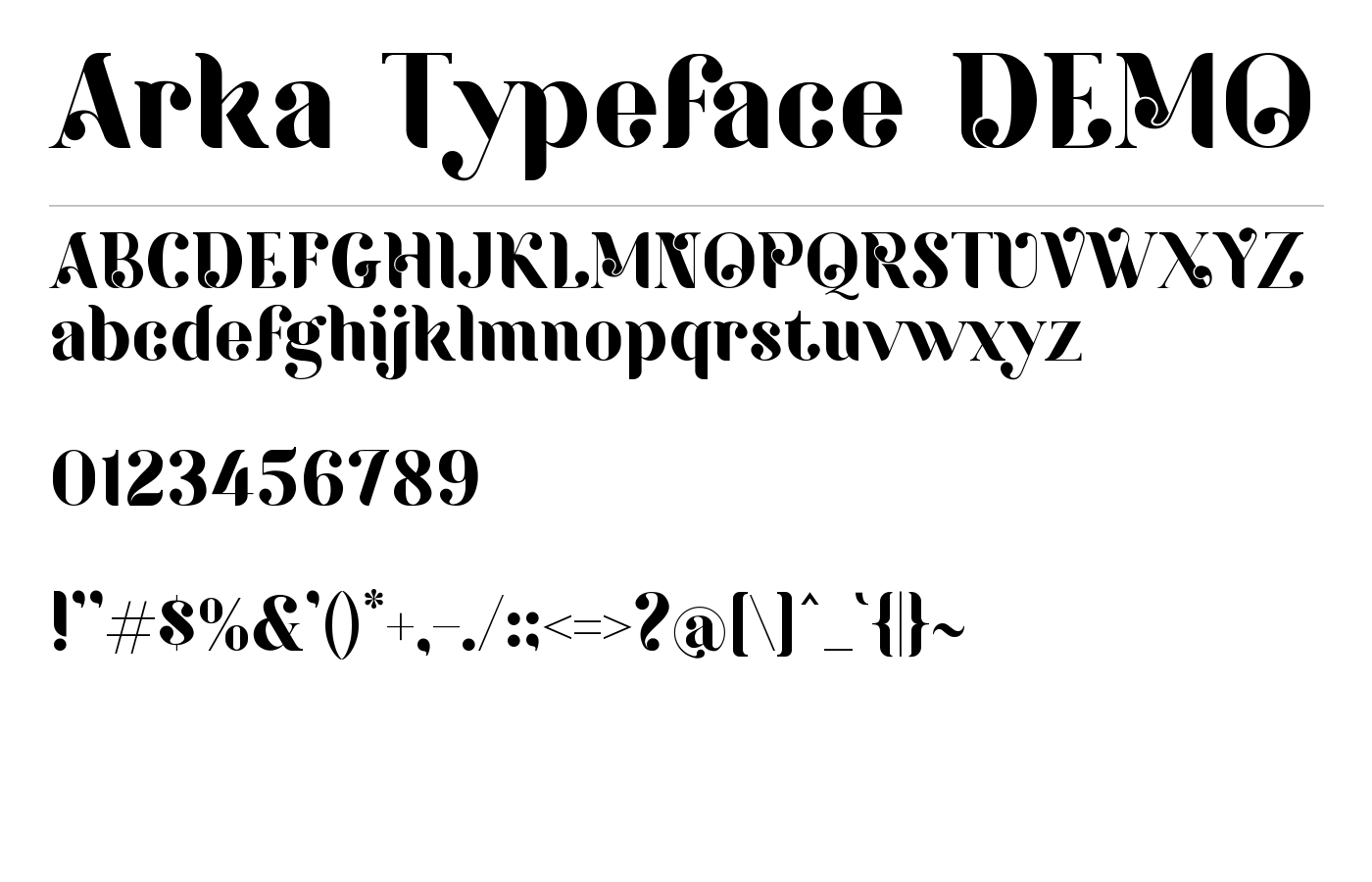
Arka Typeface DEMO is a bold serif font with a high contrast between thick and thin strokes, characterized by its unique, decorative curls and swirls adding a playful yet elegant flair. This typeface combines vintage charm with modern sophistication, making it perfect for eye-catching headlines, luxury branding, and creative packaging. Its distinctive style brings a strong personality to designs, ideal for projects that want to stand out with a touch of artistic elegance.
Arka Typeface DEMO Font
About Arka Typeface DEMO Font